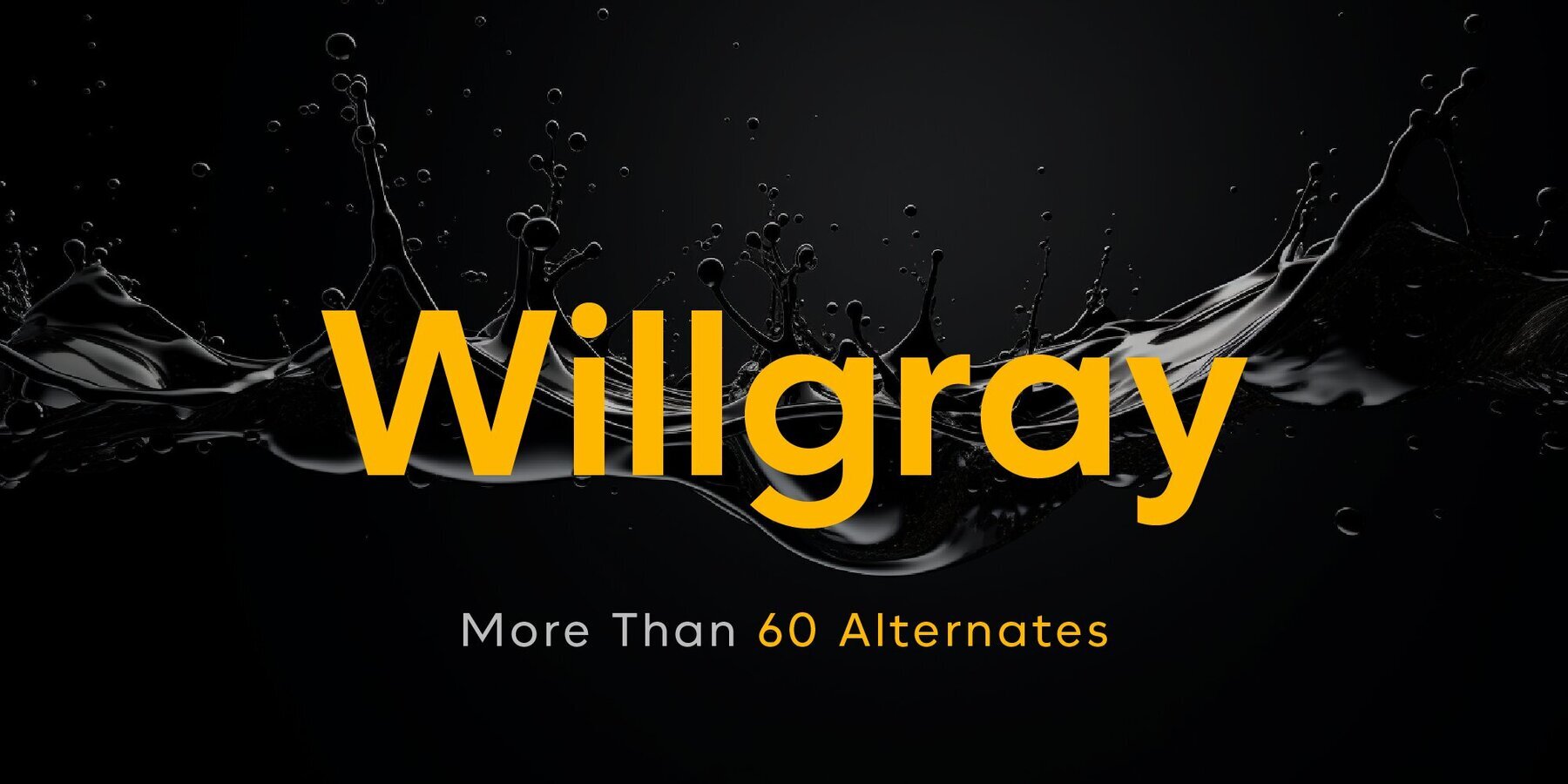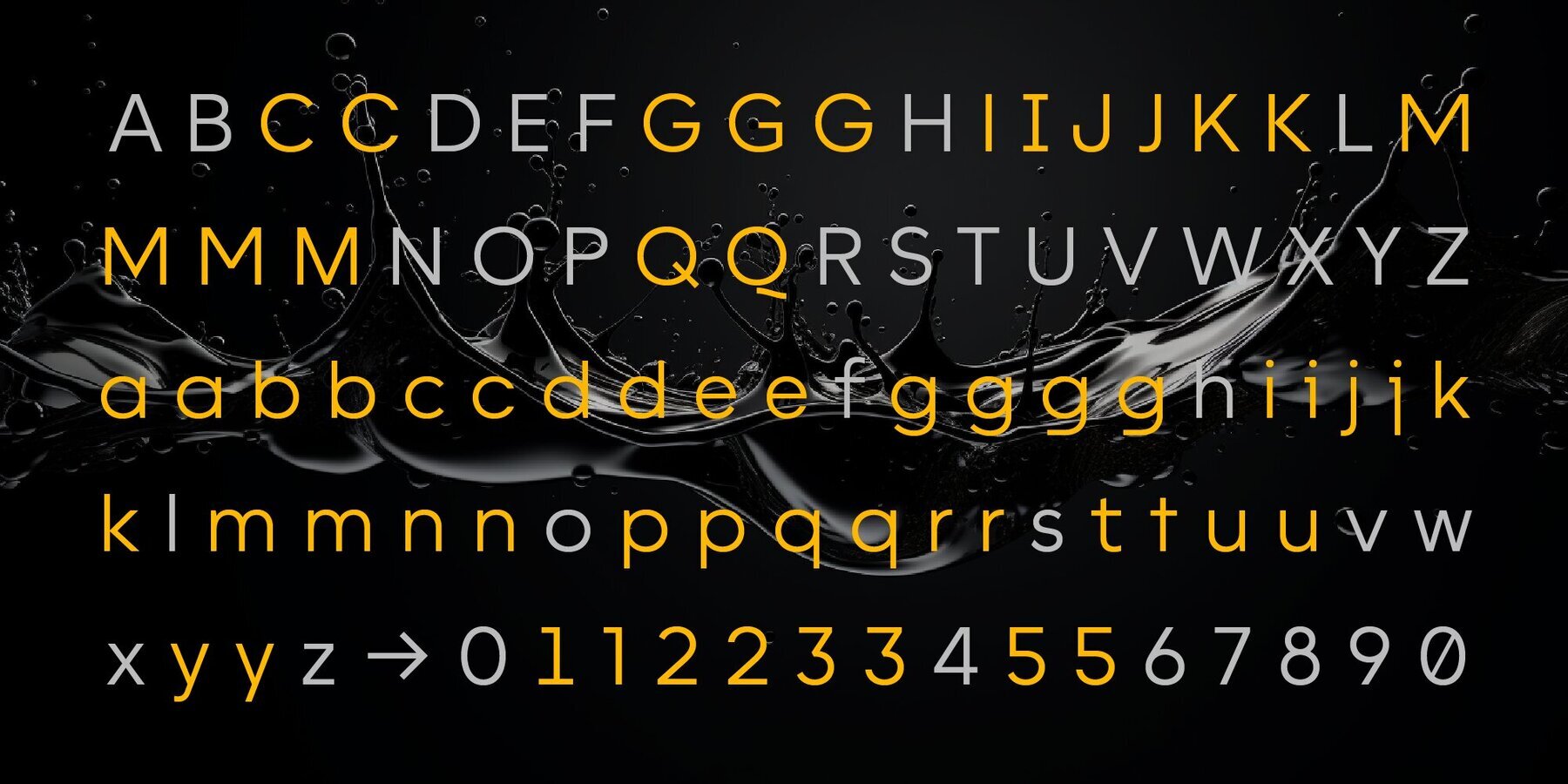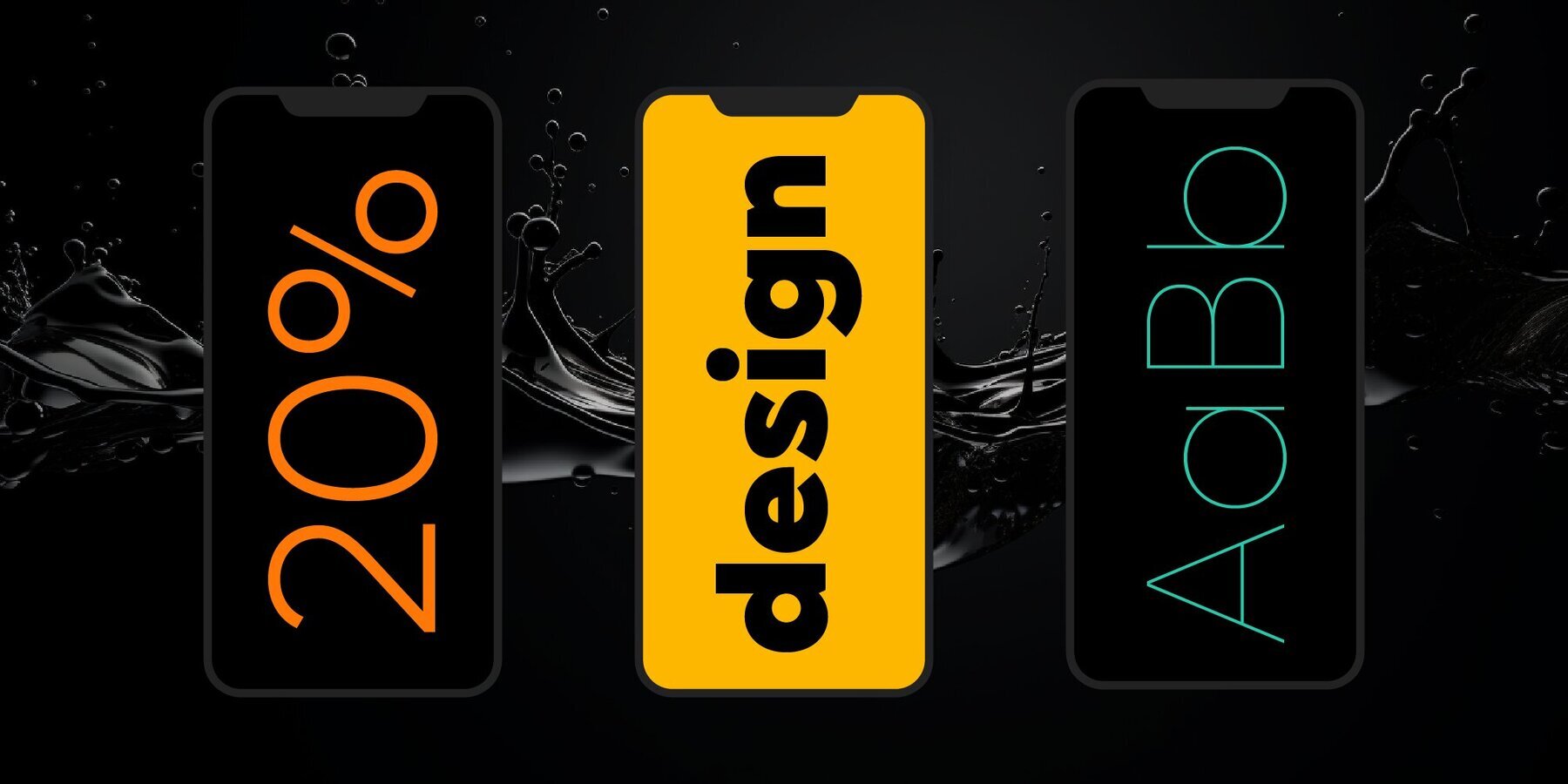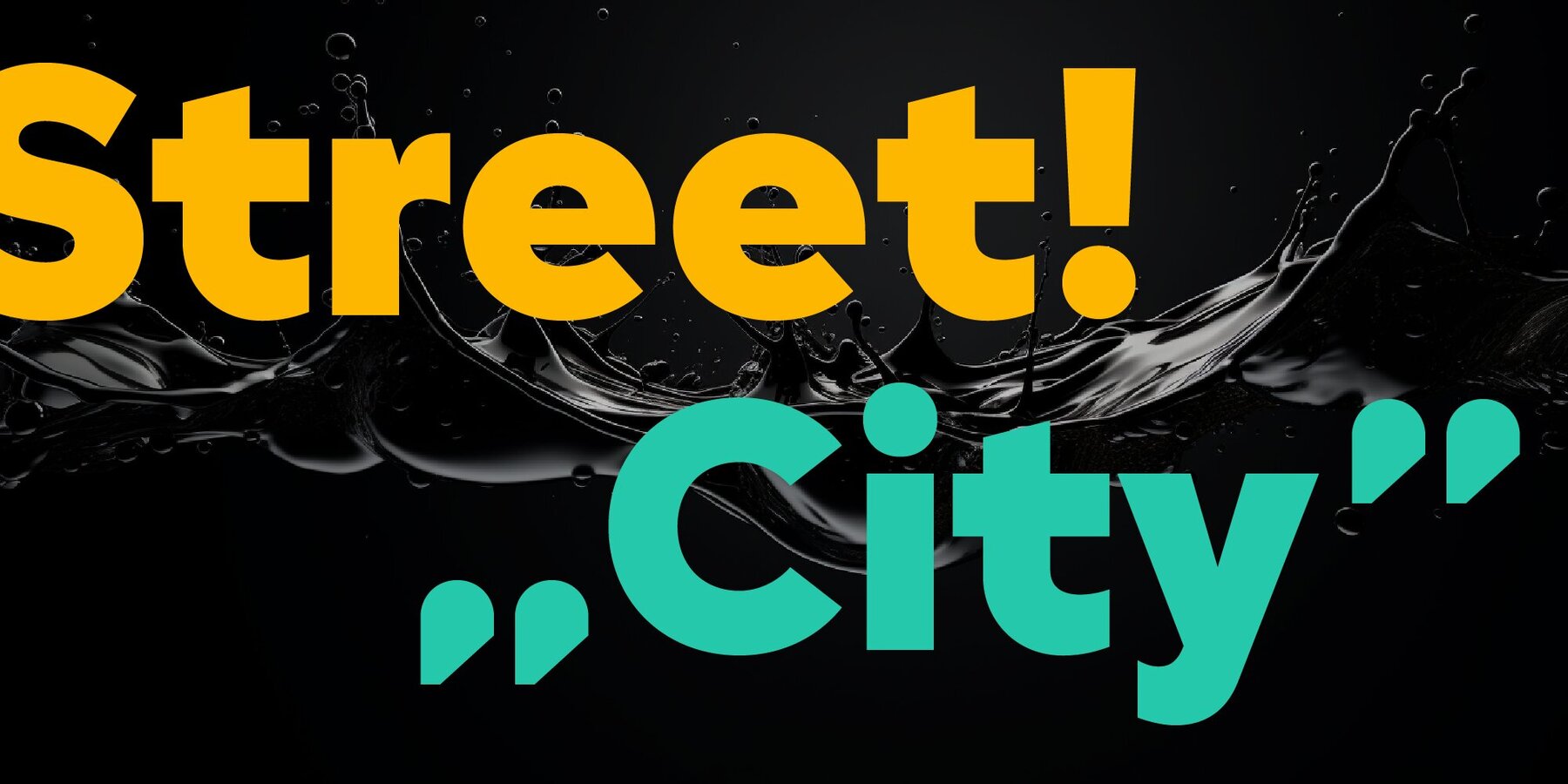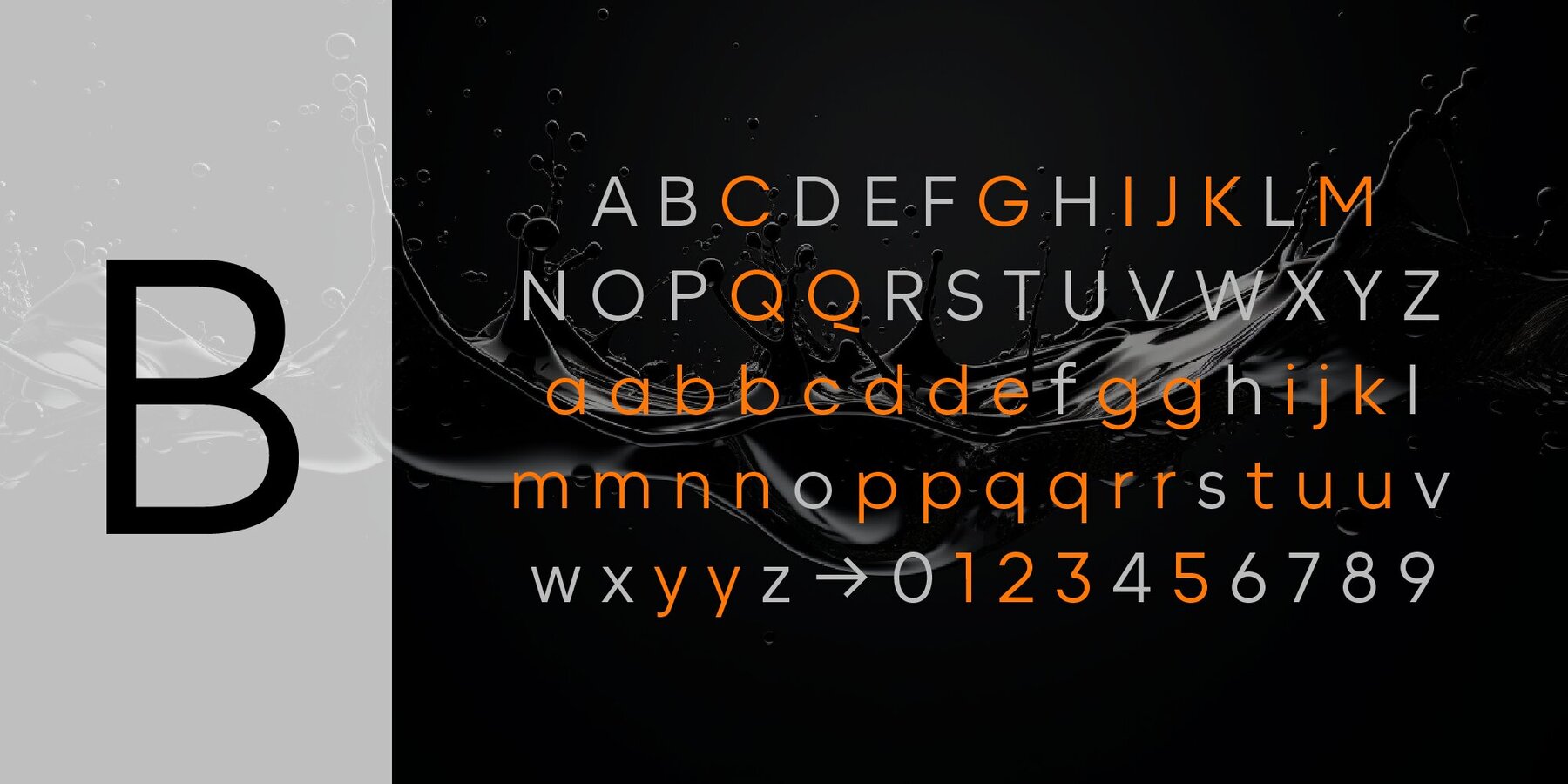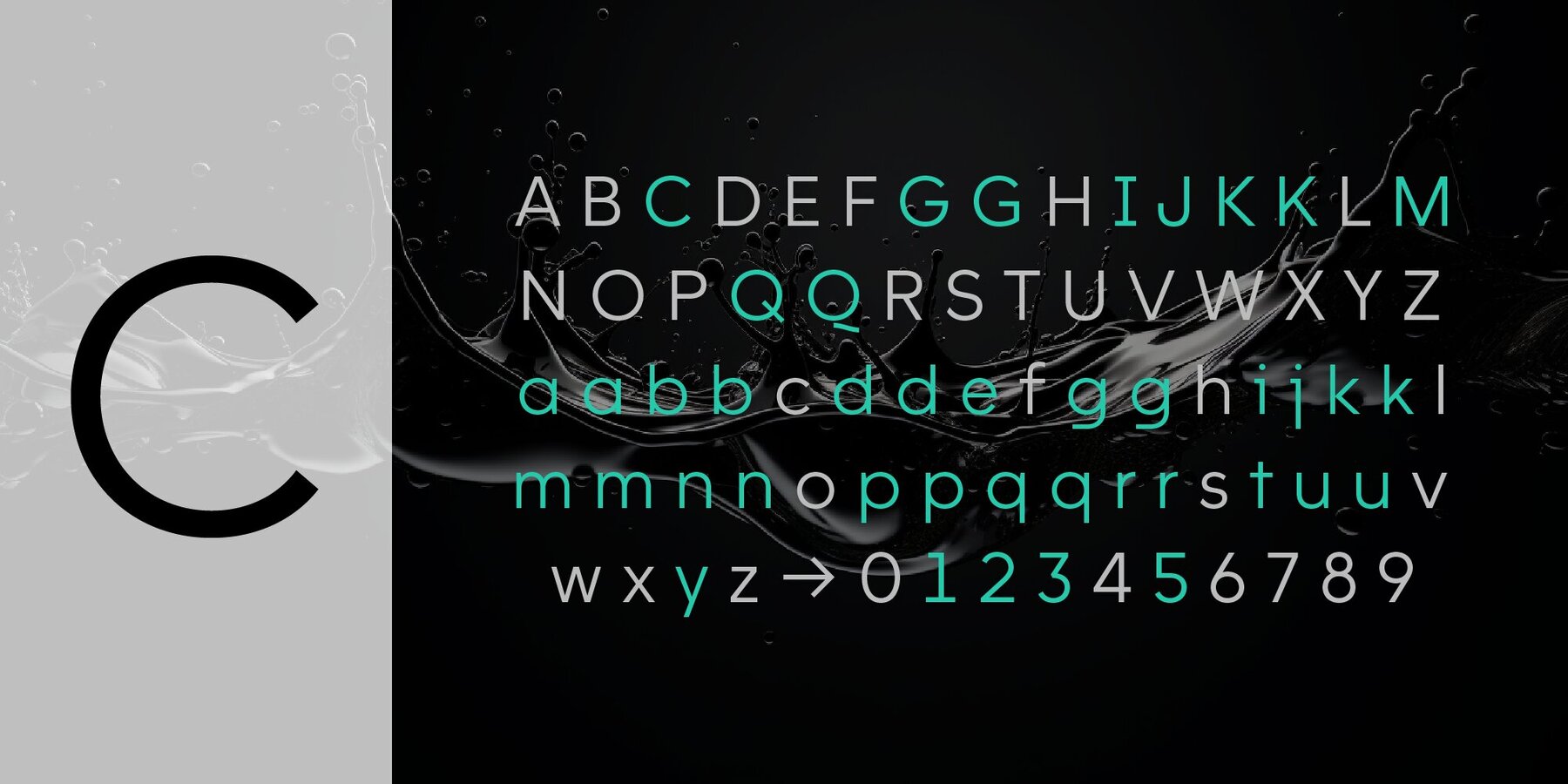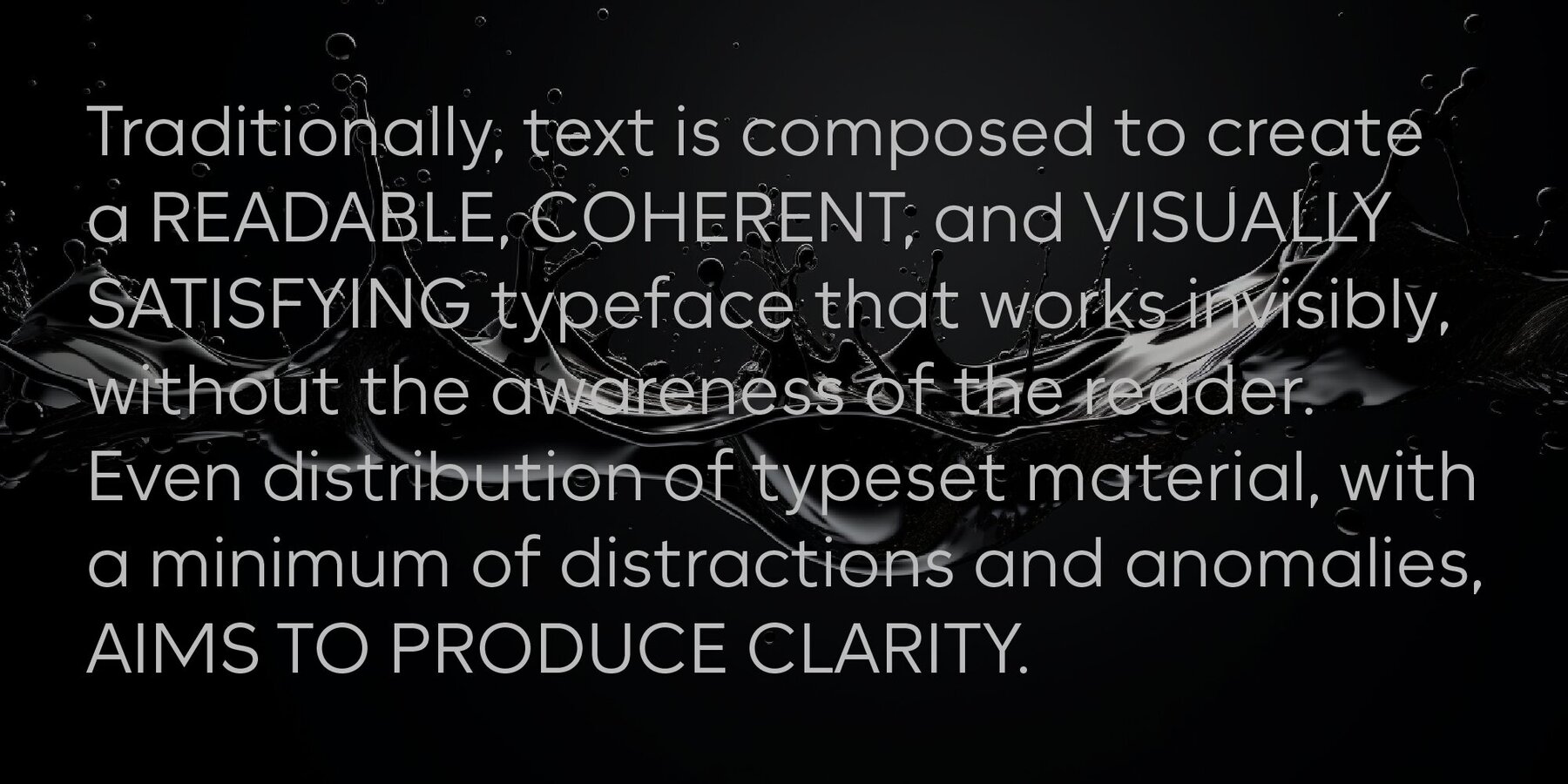
Willgray Font
The Willgray family offers three options: A, B, and C, each equipped with 20 fonts. This versatile family is ideal for a wide range of applications, including signage, packaging, brand identity, software, editorial design, and web and screen design.
Savchuk Mykola began his career as a graphic designer. Over time, he had a desire to create a font that would reflect his view of typography. ‘They say that all ingenious things are simple, although unique. In my future projects, I want to reflect simplicity on the one hand and uniqueness on the other, providi...